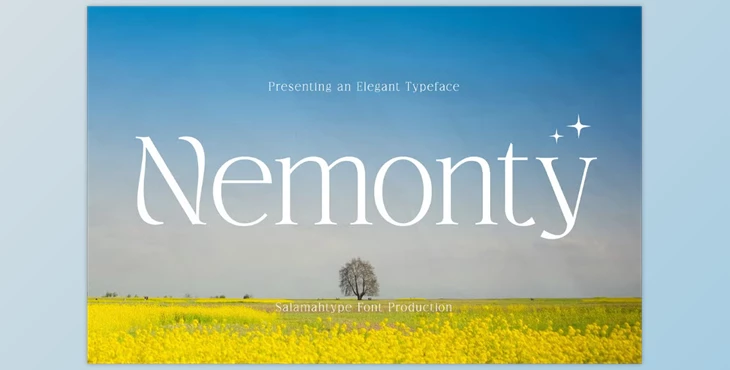
Nemonty - Minimalist Font:
Nemonty is a sophisticated, thin serif font designed to accentuate brand elegance and modernity. Its minimalist strokes and balanced shapes embody refinement, making it a perfect choice for boutique brands, luxury packaging, and editorial projects. With creative alternates and ligatures, Nemonty allows designers the flexibility to craft unique wordmarks and logos. Its versatile style ensures a sleek, professional aesthetic tailored for high-end branding and creative projects.
Some great features of Nemonty - Minimalist Font:
Typography Styles:
- Uppercase and Lowercase letters
- Symbols and Punctuation
Advanced Typographic Options:
- Ligatures for seamless connections between letters
- Alternates for custom wordmarks and designs
Multilingual Support:
- Comprehensive character set for global usability